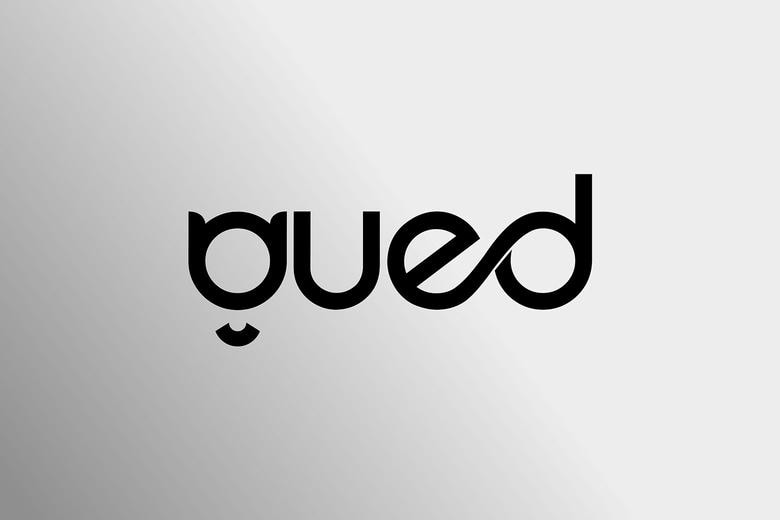
Gued Font
Gued Font- Geometric Sans Serif Font to a Clean and Modern Logo. Typography determines the communication of the brand as clean, confident and timeless. This is where Gued Geometric Sans Serif Font fits in to help new designers who admire simplicity Gued combines geometric accuracy with soft proportions to produce a multi-purpose font to be used in logos, branding, and digital design.
The project looks professional and smart with the help of this geometric sans serif font. Having several weights, italics, alternates, and ligatures, Gued provides complete control over style and expression and still has a clean and modern look.
Modern Clarity Sans Serif Geometric Font. Gued is proposed to be simple and sophisticated. Being a geometric sans serif typeface, it incorporates minimal lines and symmetrical forms to prevent the least possible legibility in both print and digital mediums. The contemporary advantage of Gued touches all the areas of meaning through tech startups and corporate identities, as well as lifestyle brands and creative portfolios.
Gued Sans Serif Font